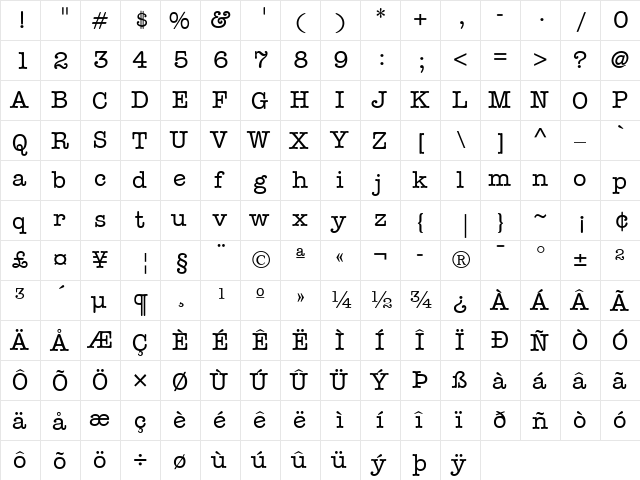
AmericanTypewriter LT MediumA Regular Font Preview
Design Context for AmericanTypewriter LT MediumA Typeface
AmericanTypewriter LT MediumA uses fixed-width spacing throughout, giving it the structured, systematic character associated with coding environments and technical documentation. Its slender proportions lend an understated elegance to any composition.
A natural fit for code editors, technical documentation, developer-focused branding, and terminal-inspired UI.
Pro Tip: Pair AmericanTypewriter LT MediumA with a proportional sans for UI contexts where code-style labels and regular body copy need to coexist.